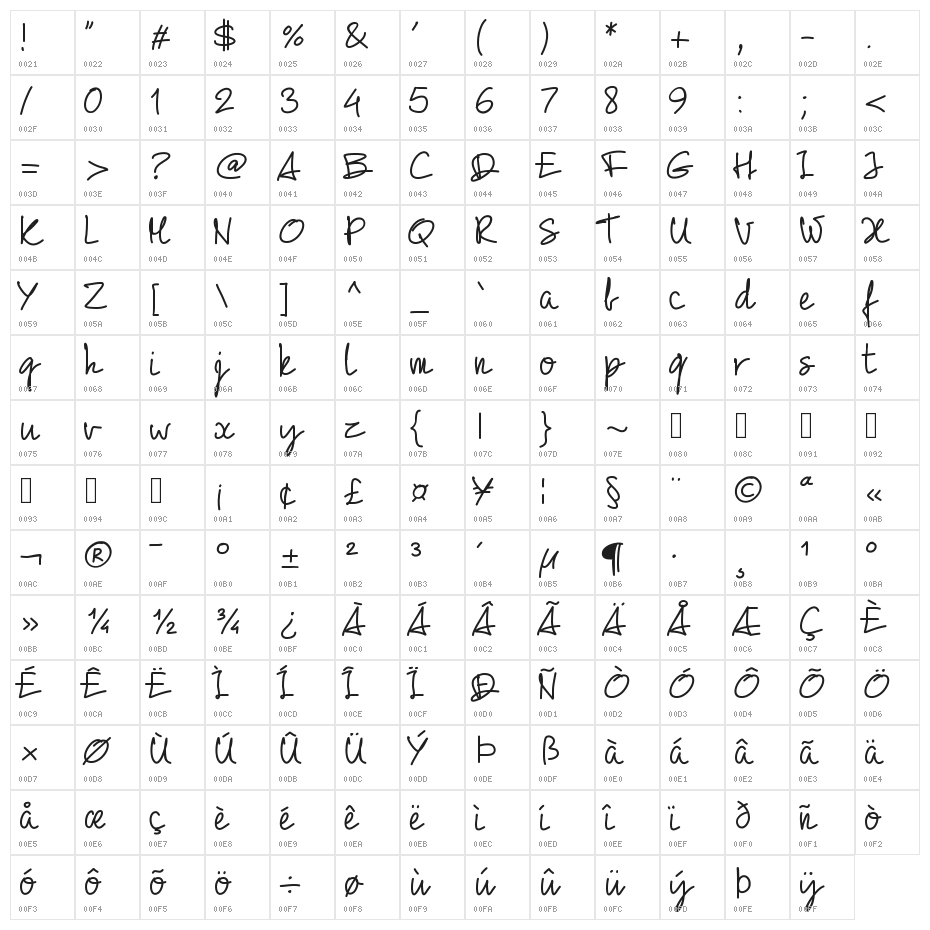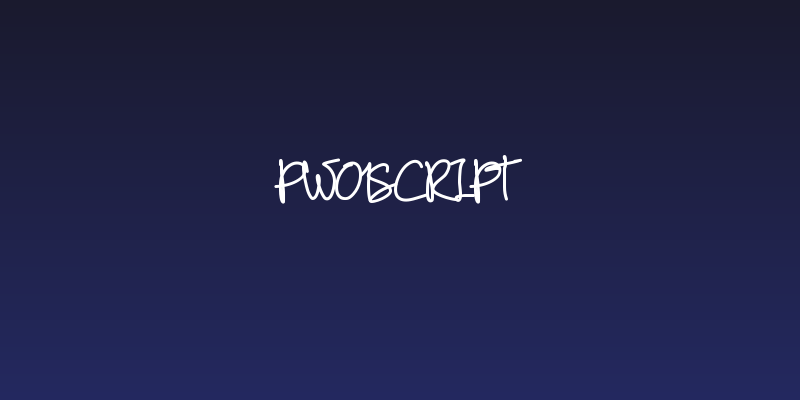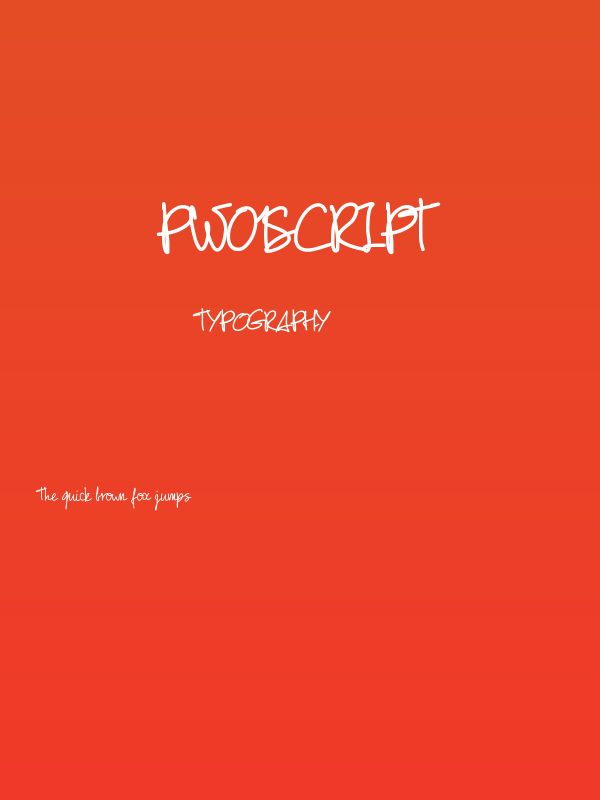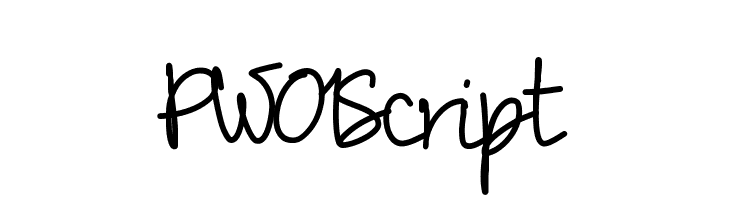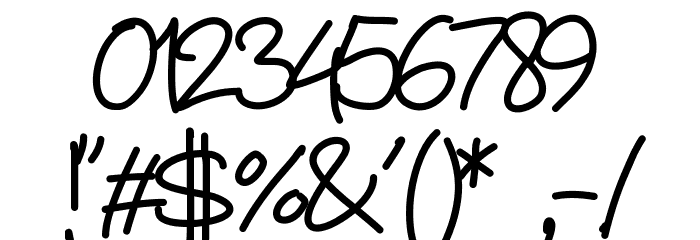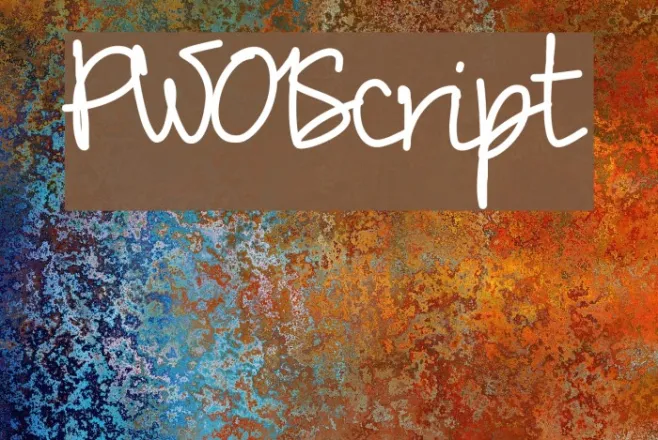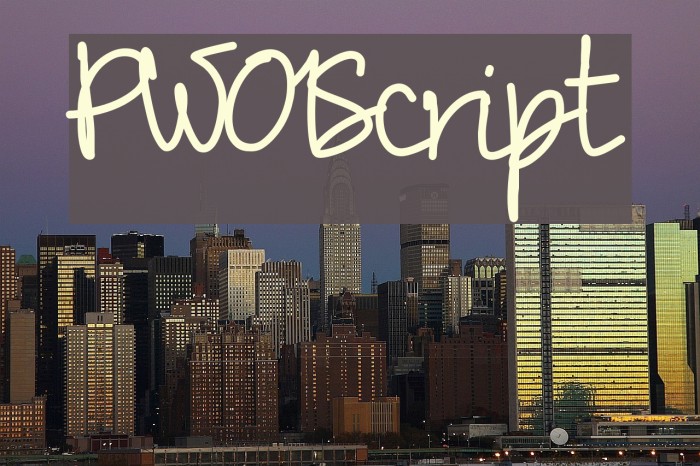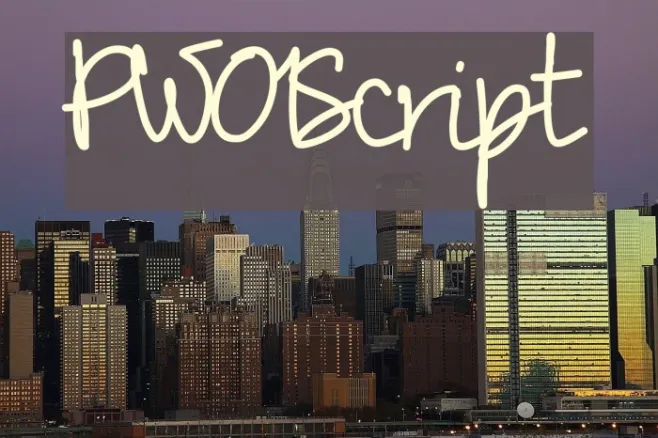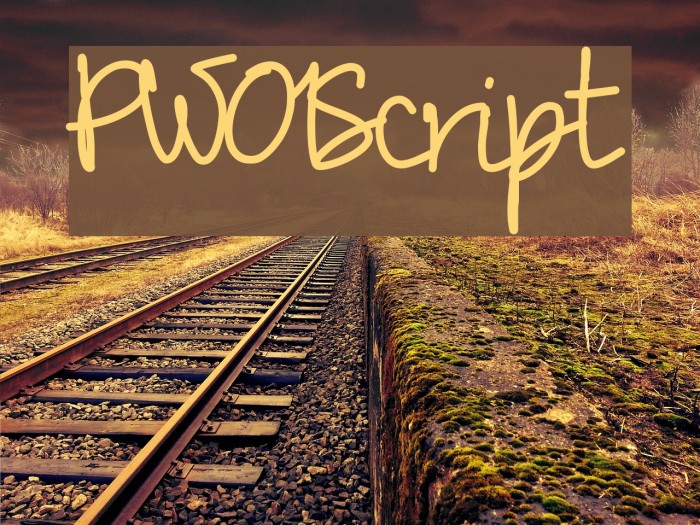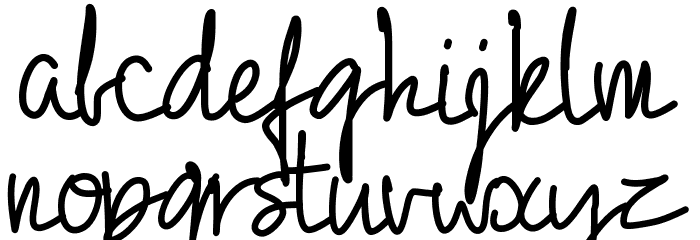
PW01Script Font
PW01Script Description
This font features a dynamic and energetic handwritten style, characterized by its fluid and slightly chaotic strokes. The letters are connected in a way that mimics natural handwriting, giving it a personal and informal feel. The uppercase and lowercase letters maintain a consistent style, with a playful and spontaneous appearance. The numbers and special characters follow the same lively design, making the font versatile for various uses. Its unique style is perfect for projects that require a personal touch or a casual, friendly vibe.
| Use Case | Logos, Headlines, Informal text |
| Proposed Projects | Ideal for greeting cards, personal branding, casual invitations, and social media graphics. |